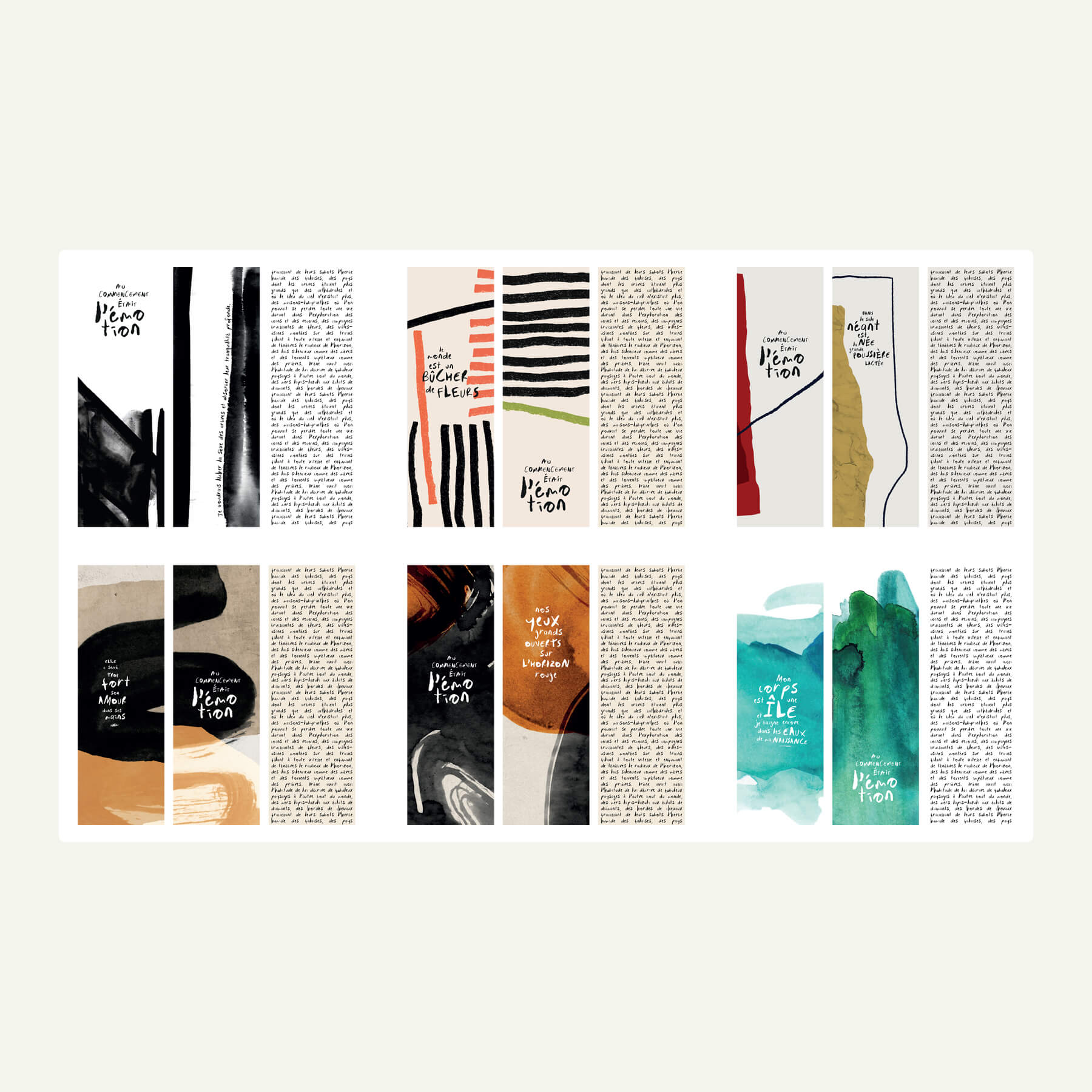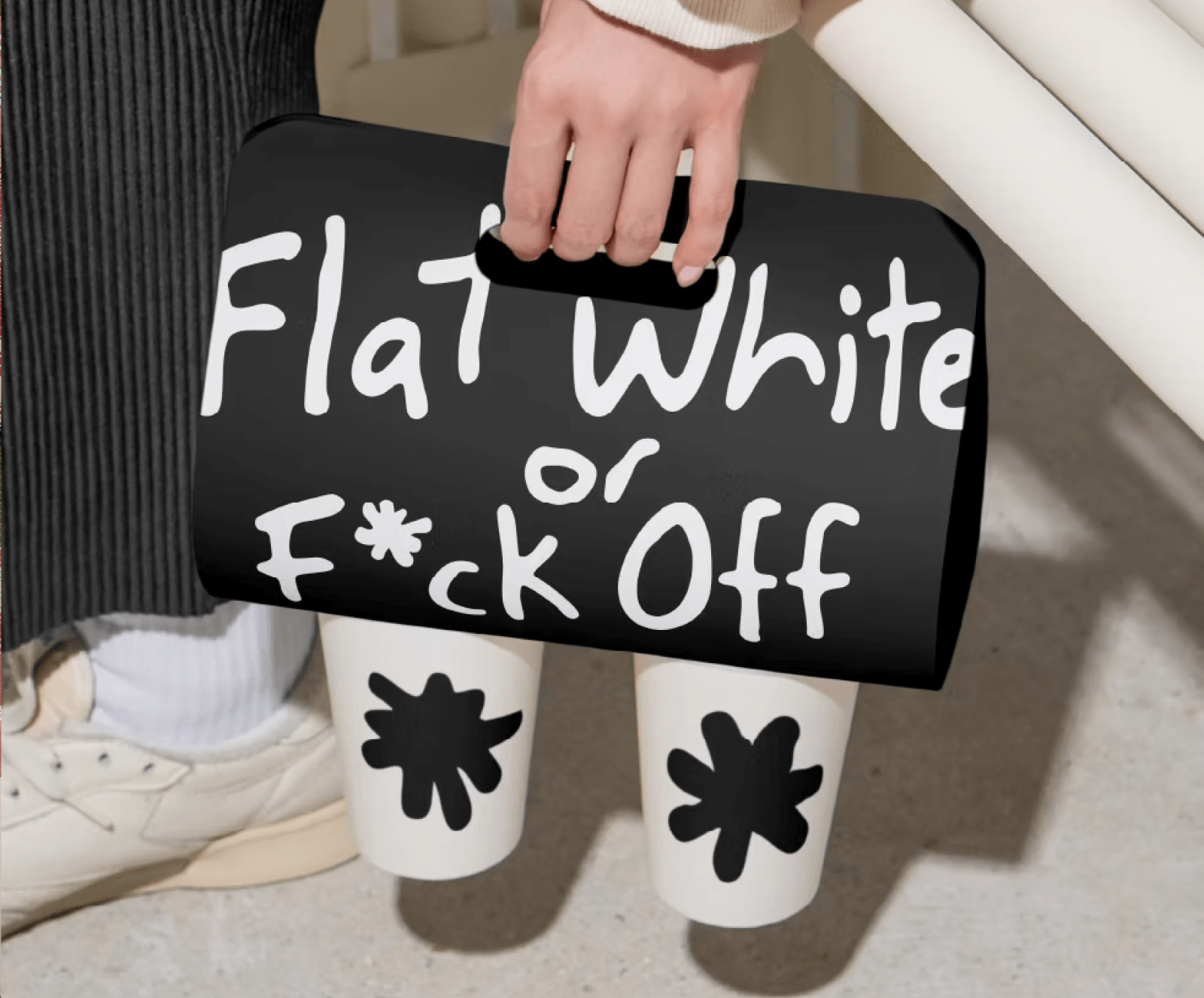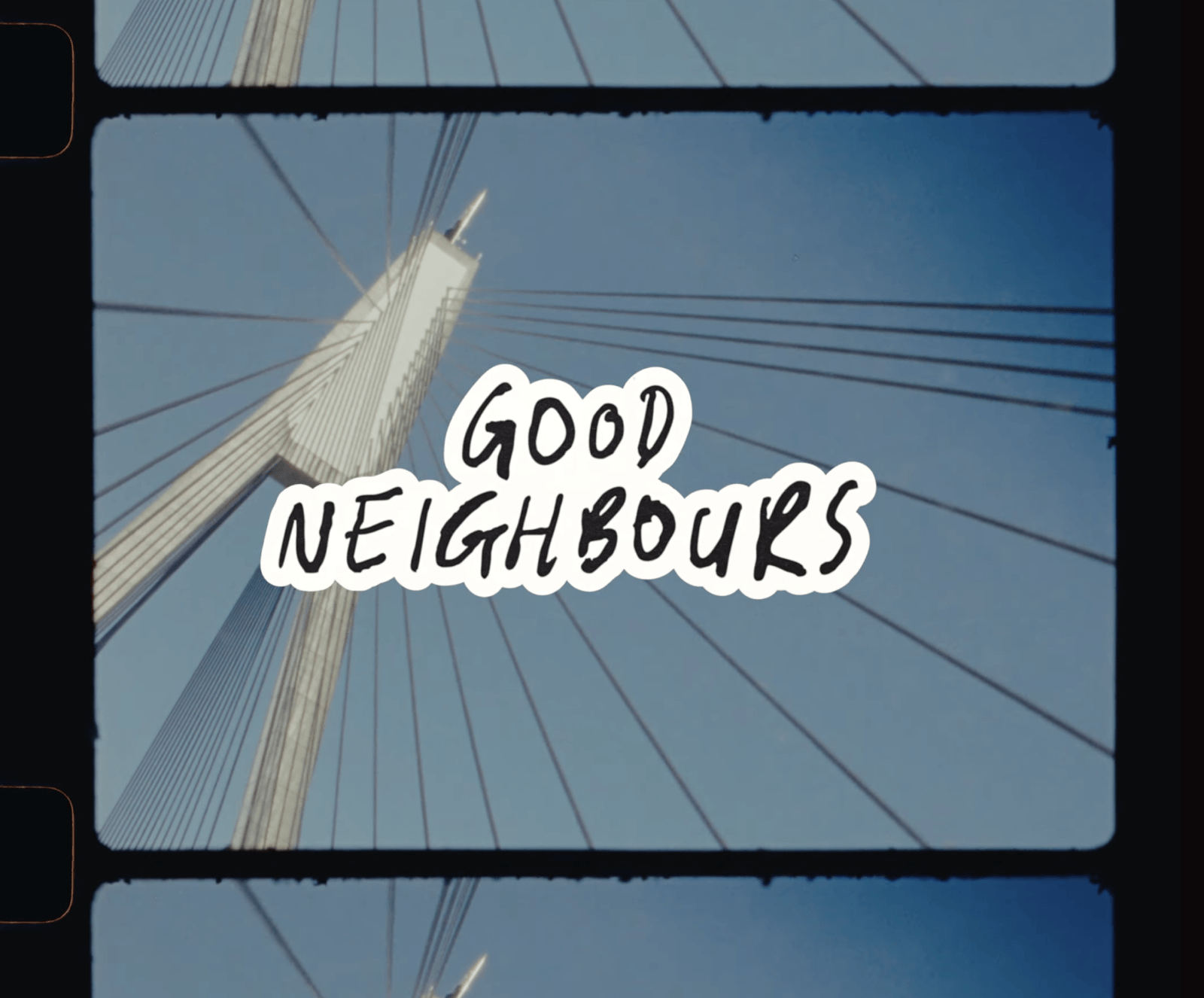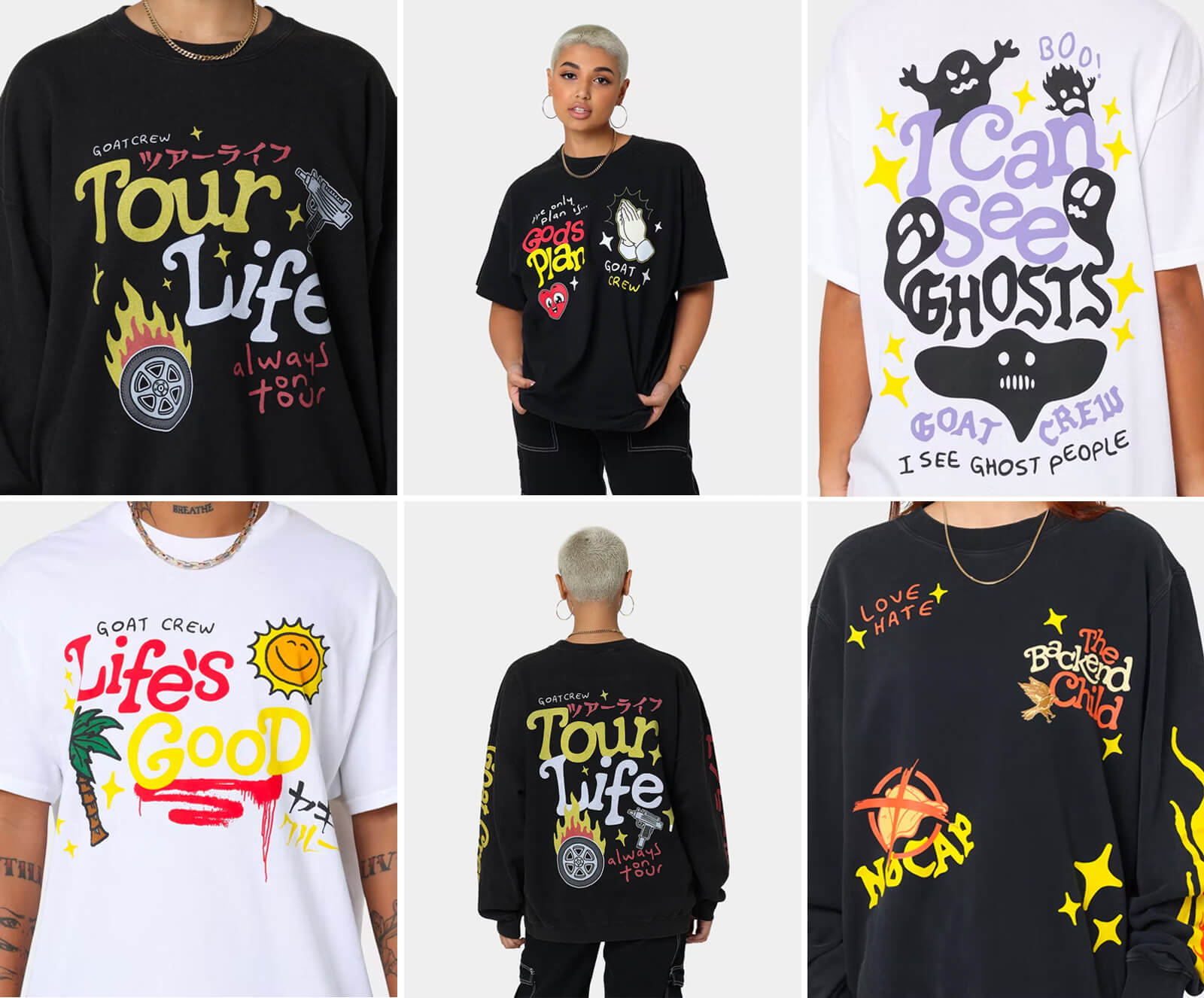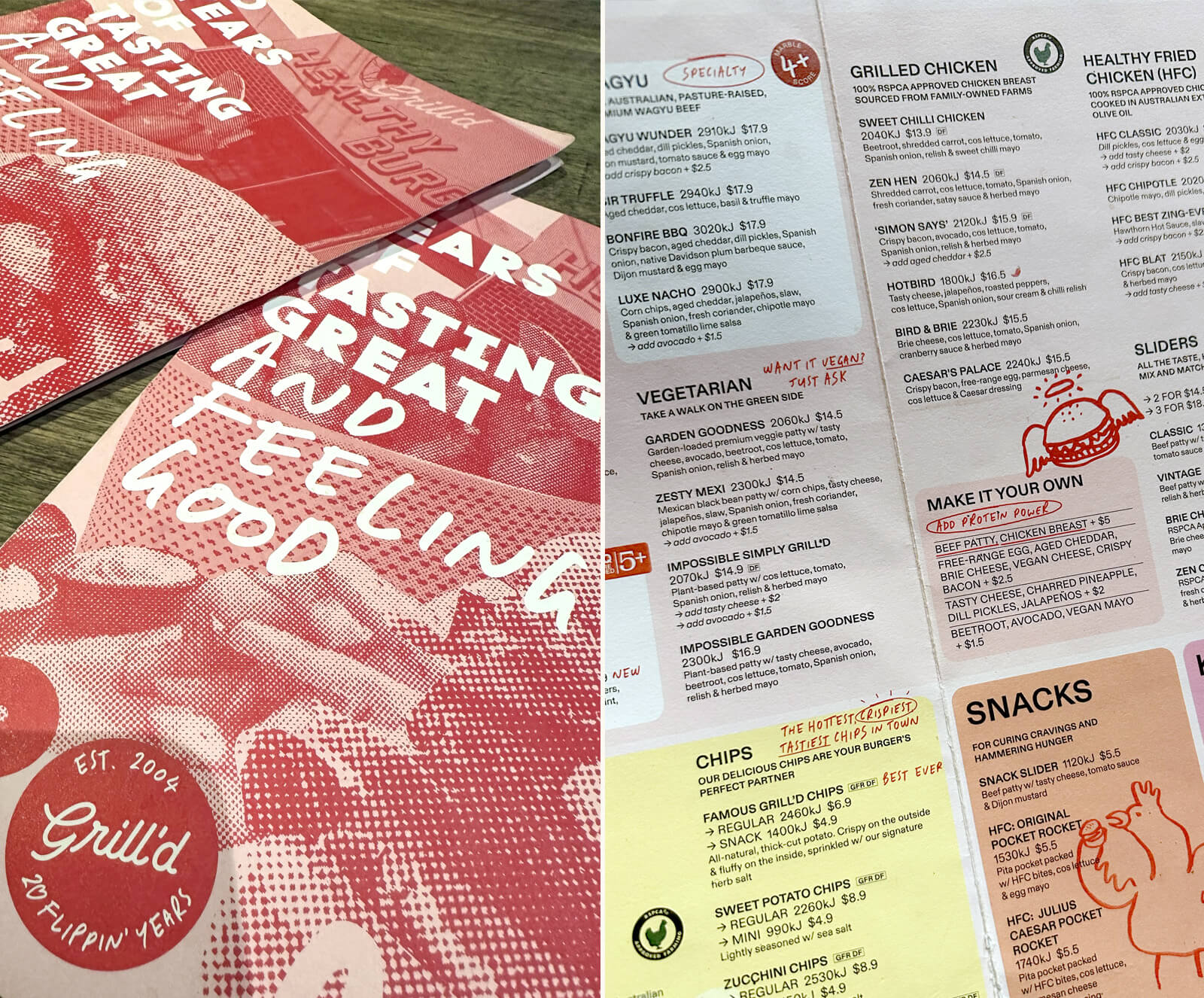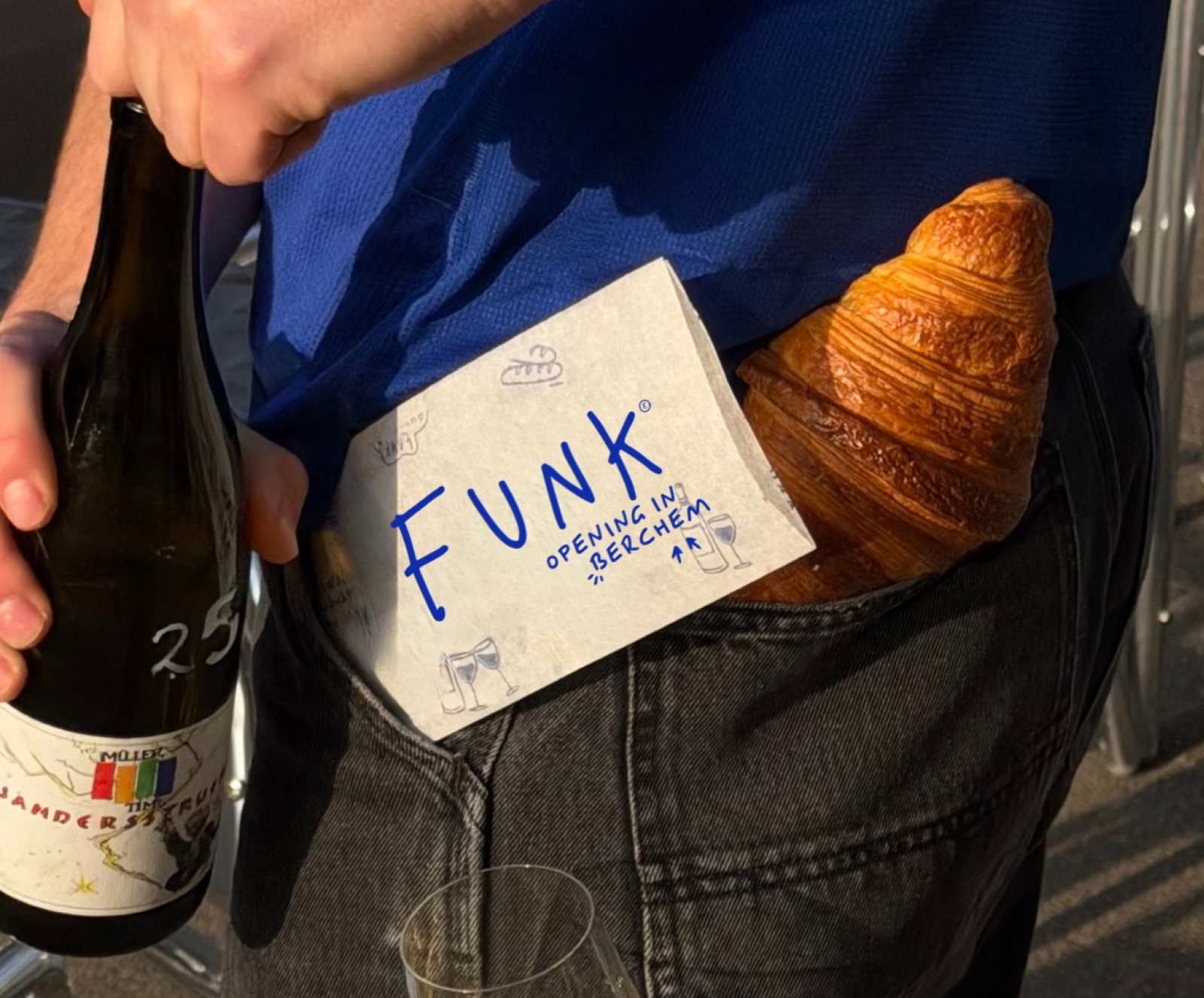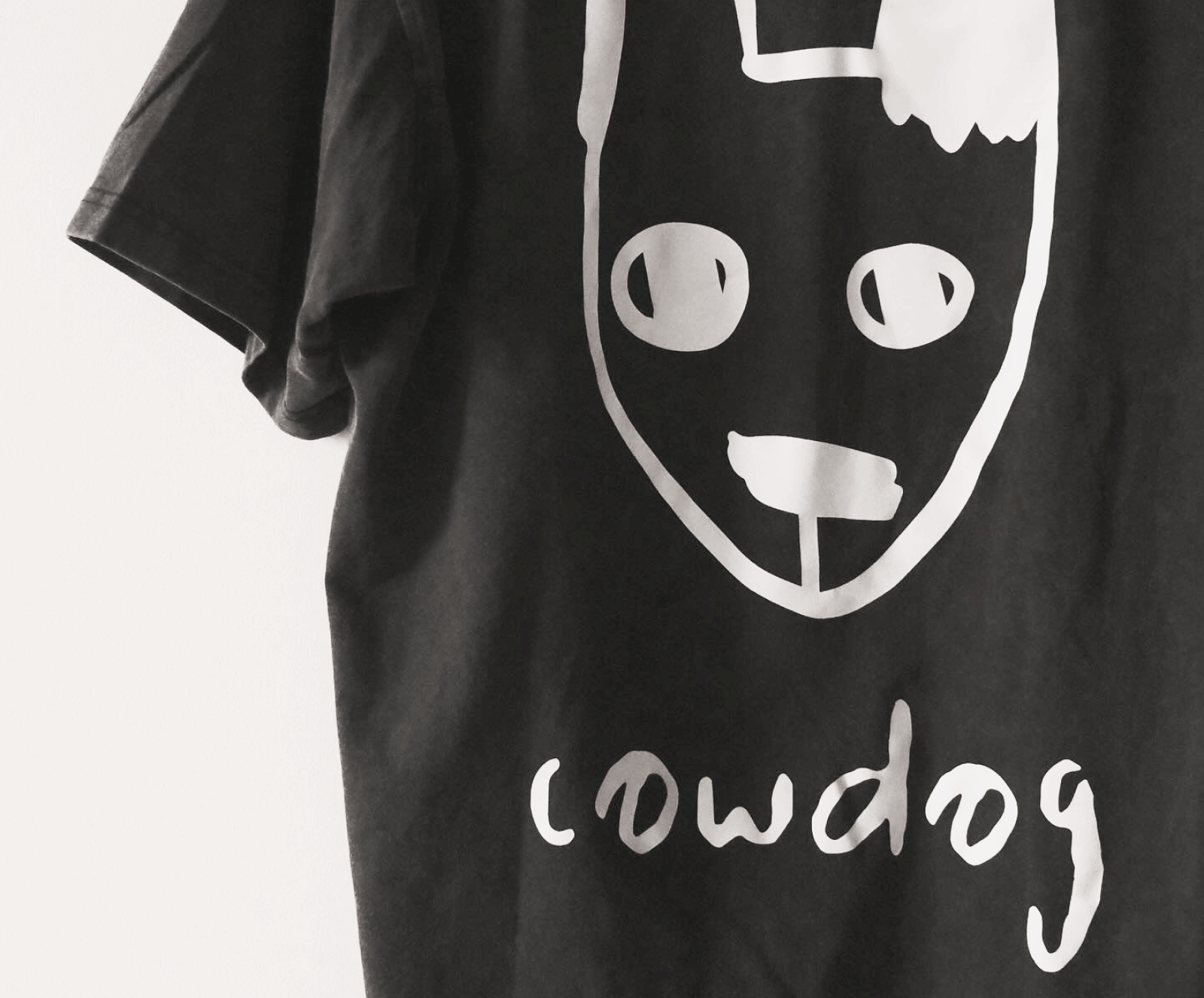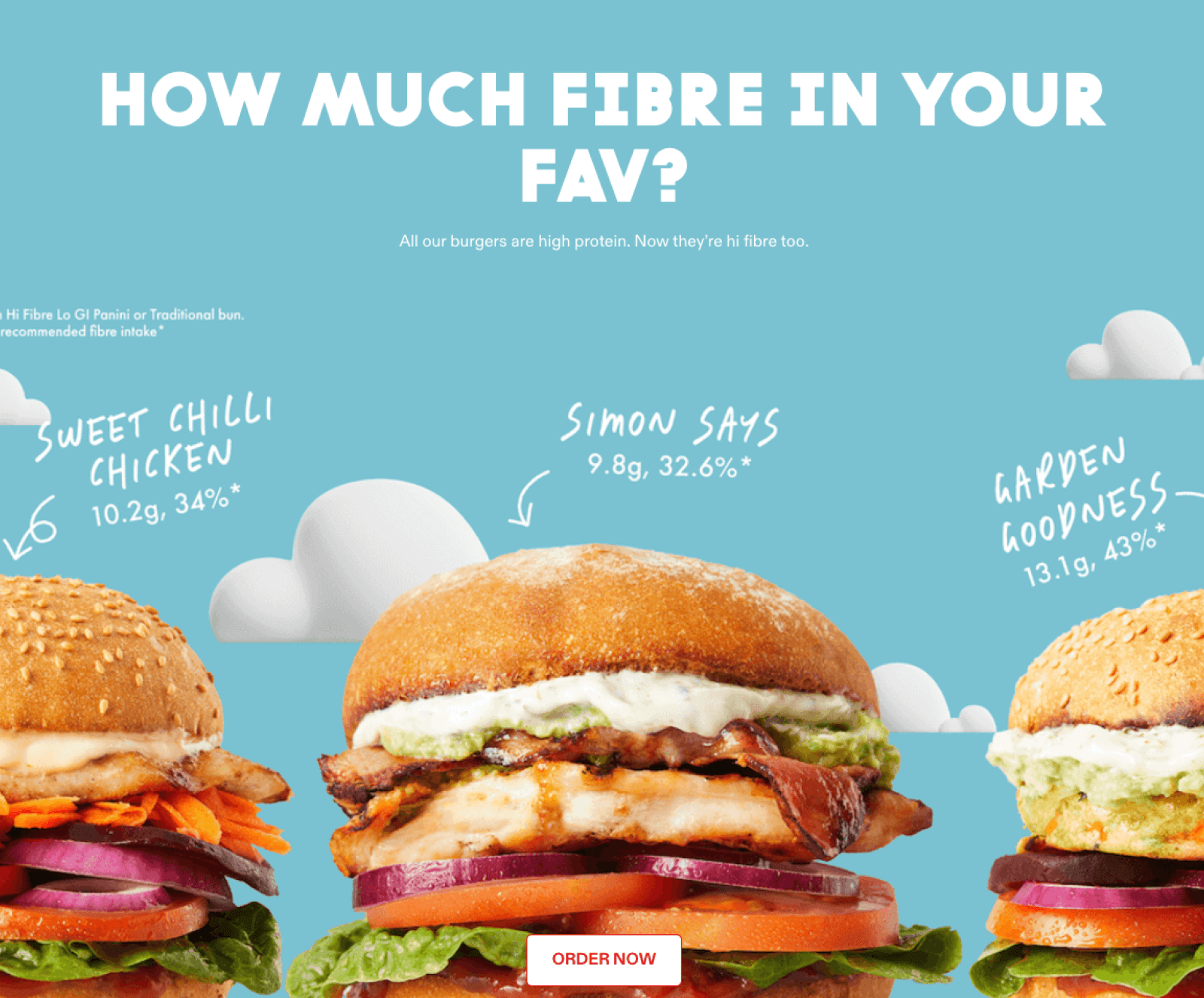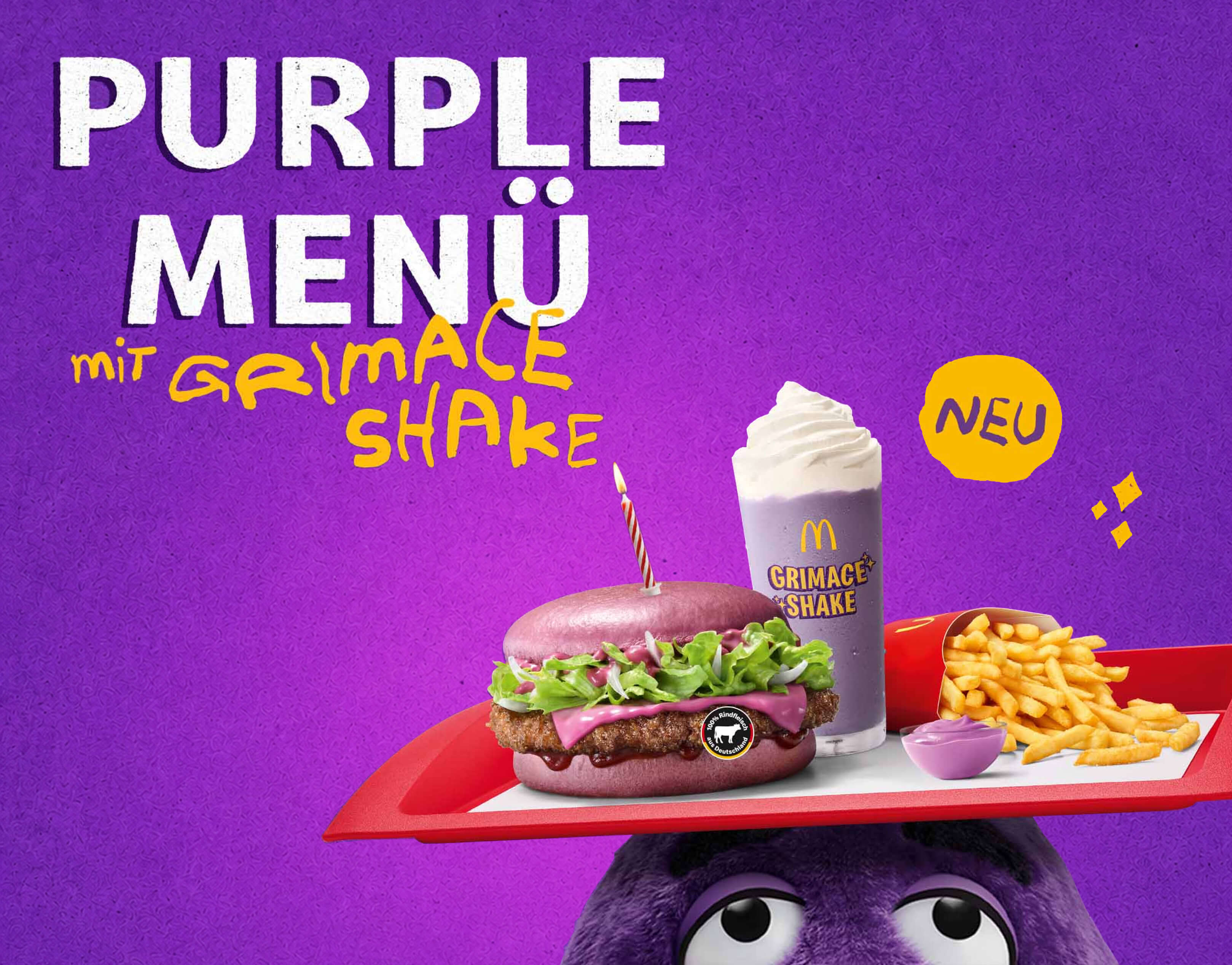
Celebrating the Purple Menu at McDonalds, Grimace proudly shows off Pandemonium at his party.
Manic fits this quirky coffee branding perfectly.
Vow is an Australian food biotechnology company that creates cultured meat (lab-grown meat) from animal cells, aiming to make sustainable, nutritious and novel meats without traditional farming.
I think this means Funk Bakery in English (correct me if I'm wrong). Very cool branding.
Juniper Bay - front and centre on the Grill'd website 👌
Super cute and friendly branding on Nobo Milk (coconut and oat).
Infamous is used as the title font for the Good Neighbours series by Square. Good Neighbours meets business owners who are shaping the culture of Sydney.
“Flat White or F*ck Off” embraces a no-nonsense philosophy—no fuss, no faff, just great f*cking coffee. The brand’s crude, handwritten aesthetic, inspired by the hurried scrawl of a barista mid-rush, pairs with a sharp, witty tone of voice to create an identity that is both disarmingly simple and instantly engaging.
I'm still new enough to the typography business to get excited by seeing Juniper Bay in the new Grill'd Burgers branding :)
Manic can be seen throughout a few designs in Willow Smith's branding, including this reel as well as promos for her new album and on merch.
"I went and found a nice handwritten font to use: Poppy Fineliner by TYPEHEIST. It has the right balance of legibility and handwritten beauty that I was looking for. I was excited to finally have a project for it. It instantly transformed the comic."
One night, browsing Pinterest when I couldn't sleep, I came across this branding. I recognised 'Manic' on the label. It was a pleasant surprise on a crappy night, and I'm a big fan of the raised text.
Pretty cool to see one of my fonts in the opening credits of a Netflix movie. Pretty uncool that they did not / have not purchased the correct license to do so 🥲
Spotted Ugly Dave on Goat Crew's apparel (I actually saw this for the first time when someone at a party was wearing one of the shirts 😎).
Spotted on the website promoting Hoodie Allen's new song 'Wouldn't that be nice'
Very excited to see TYPEHEIST'S Manic Erratic Handwritten Font in the 2021 BBC documentary 'When Nirvana Came to Britain'. It's messy and casual handwritten feel reflects the grungy feel of the 90s and Nirvana itself.
Really loving the use of Manic on these bookmarks. It's quite a different interpretation - used for love poems.
"Turning fonts into brands. I have adored this Ugly Dave font by @typeheist for THE longest time and haven’t found a brand that requires it just yet haha! I decided to give it the space it needs on my feed under it’s own brand!"
Manic was used in the lyrics videos for Glaive's EP: All Dogs Go to Heaven.